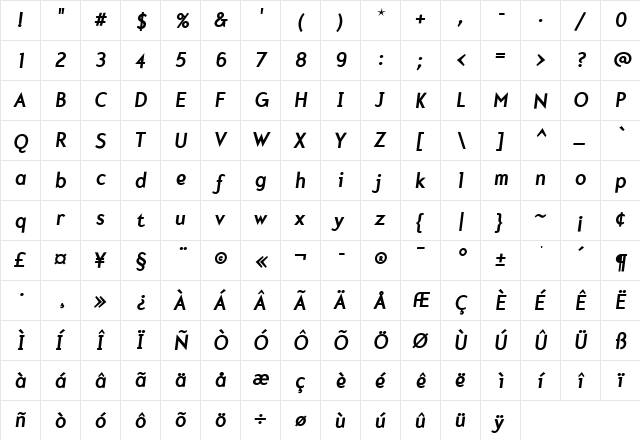
Mercury Bold Italic Font Preview
Design Context for Mercury Typeface
Mercury takes a measured approach to typography — its balanced proportions and neutral character make it a reliable workhorse for both digital and print work. Its italic angle brings a sense of urgency and motion to the letterforms. The heavy weight commands attention and anchors typographic hierarchies.
Pro Tip: Try Mercury for annotation and caption copy alongside an upright companion — the contrast in angle creates a dynamic but ordered typographic system.